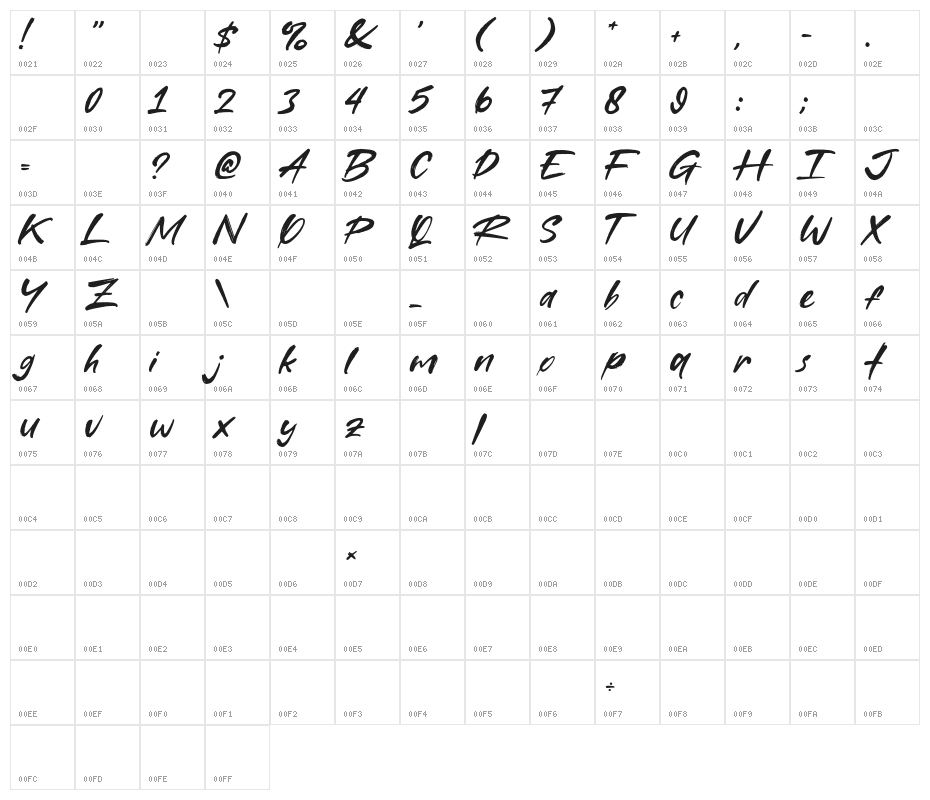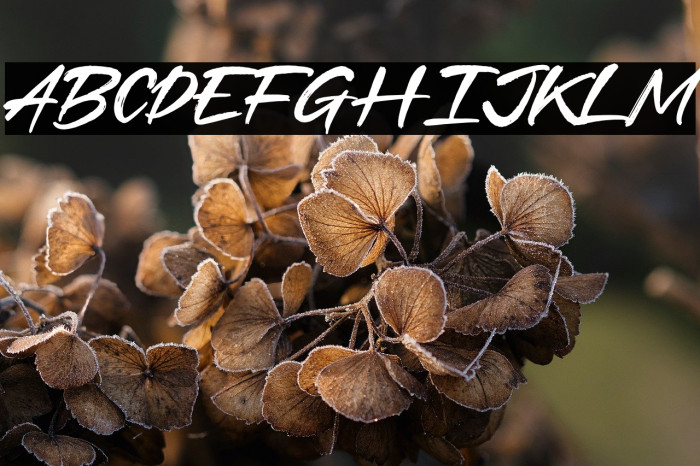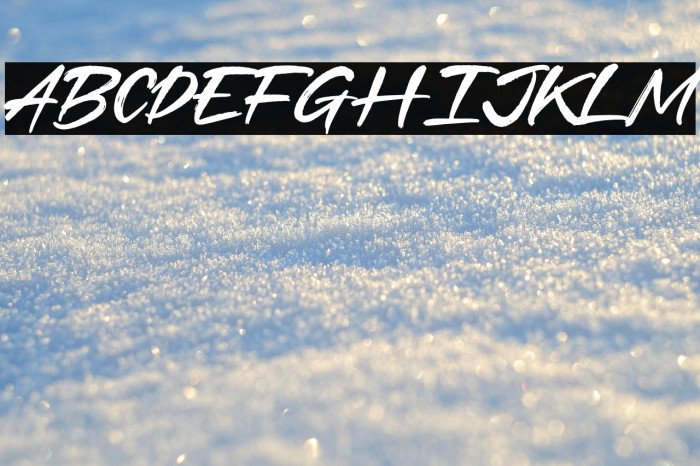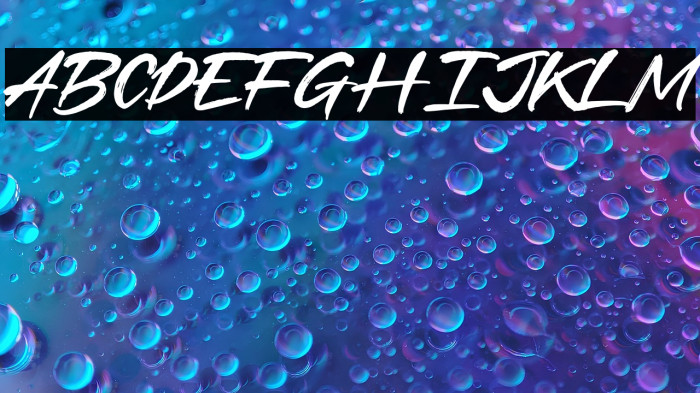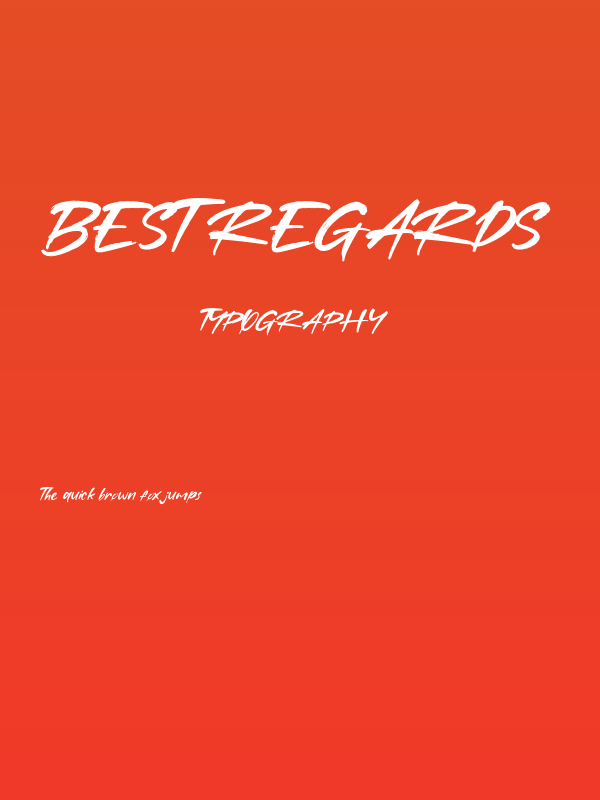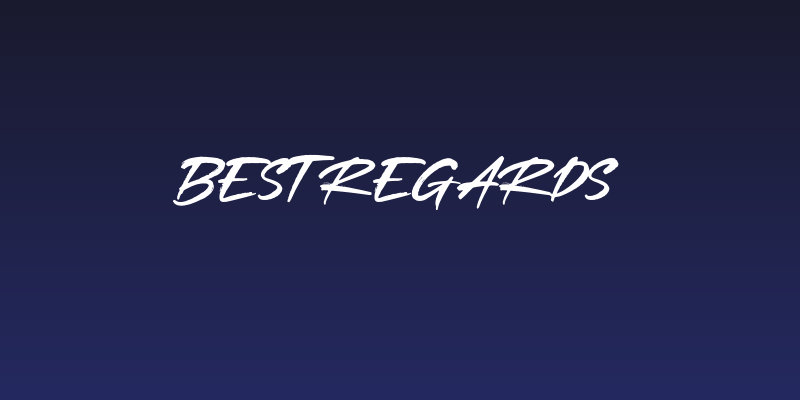
Best Regards Font
Best Regards Description
This font features a bold, expressive script style with a handwritten appearance. The letters are fluid and dynamic, with varying stroke thickness that adds a sense of movement and energy. The uppercase letters are slightly more angular, while the lowercase letters maintain a smooth, flowing form. Numbers and special characters are consistent with the overall style, providing a cohesive look. The font's design is reminiscent of brush strokes, giving it an artistic and personal touch.
| Proposed Projects | Ideal for creative projects such as greeting cards, invitations, branding, and artistic posters. |